Fonts are more than just letters on a page. They can be playful, bold, and full of personality, ready to inspire your next big idea.
1. Whimsical Wonderland
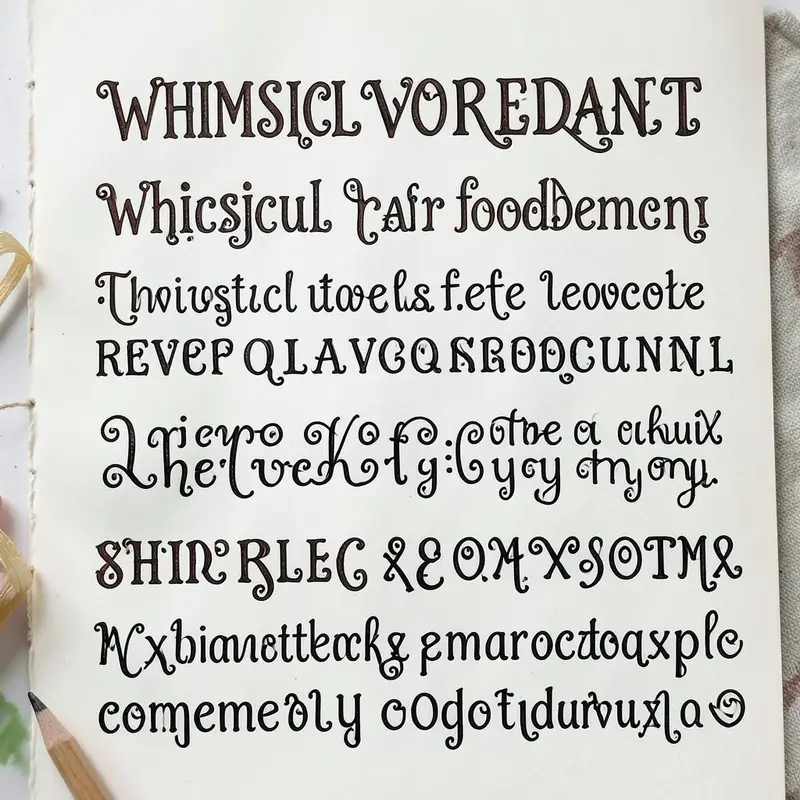
Imagine fonts that look like they’re straight out of a fairytale. Swirls, curls, and loops that dance across the page. These fonts are perfect for adding a touch of magic and wonder to any project.
Whimsical fonts can make your text look like it’s from a storybook. Use them for children’s party invitations or to add charm to a scrapbook. They’re trendy and unique, and they never fail to impress.
2. Bold and Beautiful
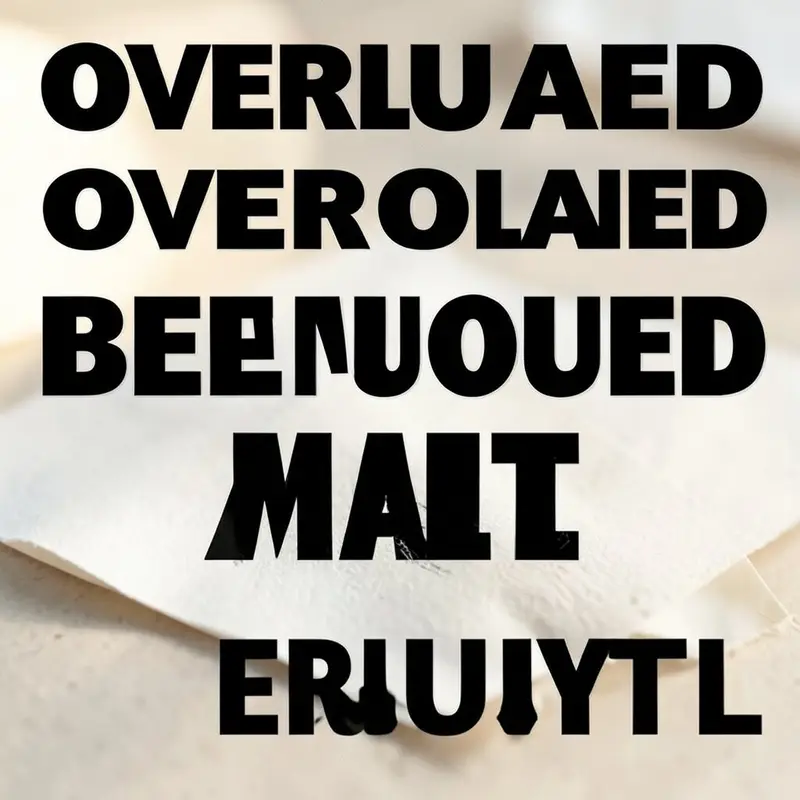
Bold fonts demand attention. They’re strong, confident, and perfect for making a statement.
Use bold fonts for headlines or titles to grab the reader’s attention. They’re ideal for posters, flyers, and social media graphics when you need your message to stand out.
3. Vintage Vibes
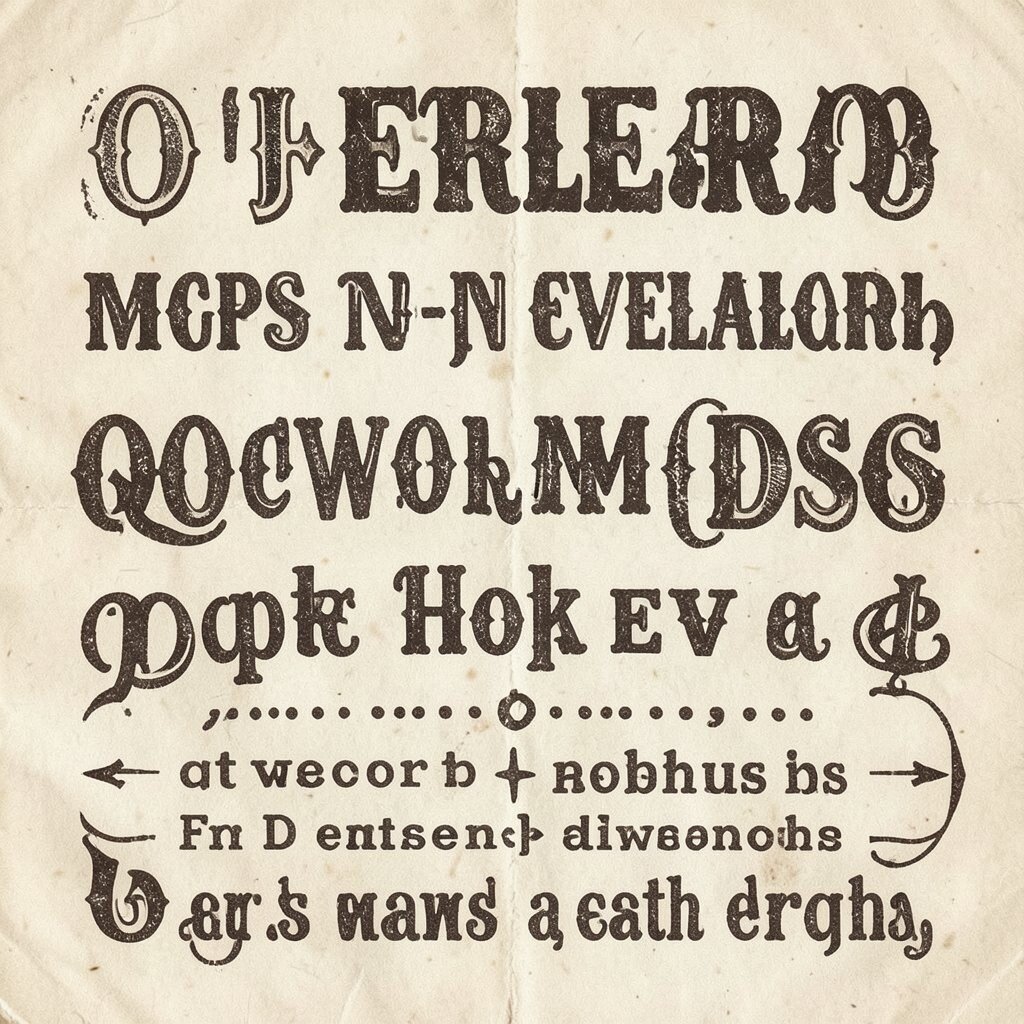
Travel back in time with fonts that have a retro feel. Think of the classic typography from the ’50s and ’60s.
These fonts are great for creating nostalgia. Use them for branding or to give your project a timeless look. They’re especially popular in fashion and home decor.
4. Minimalist Marvels
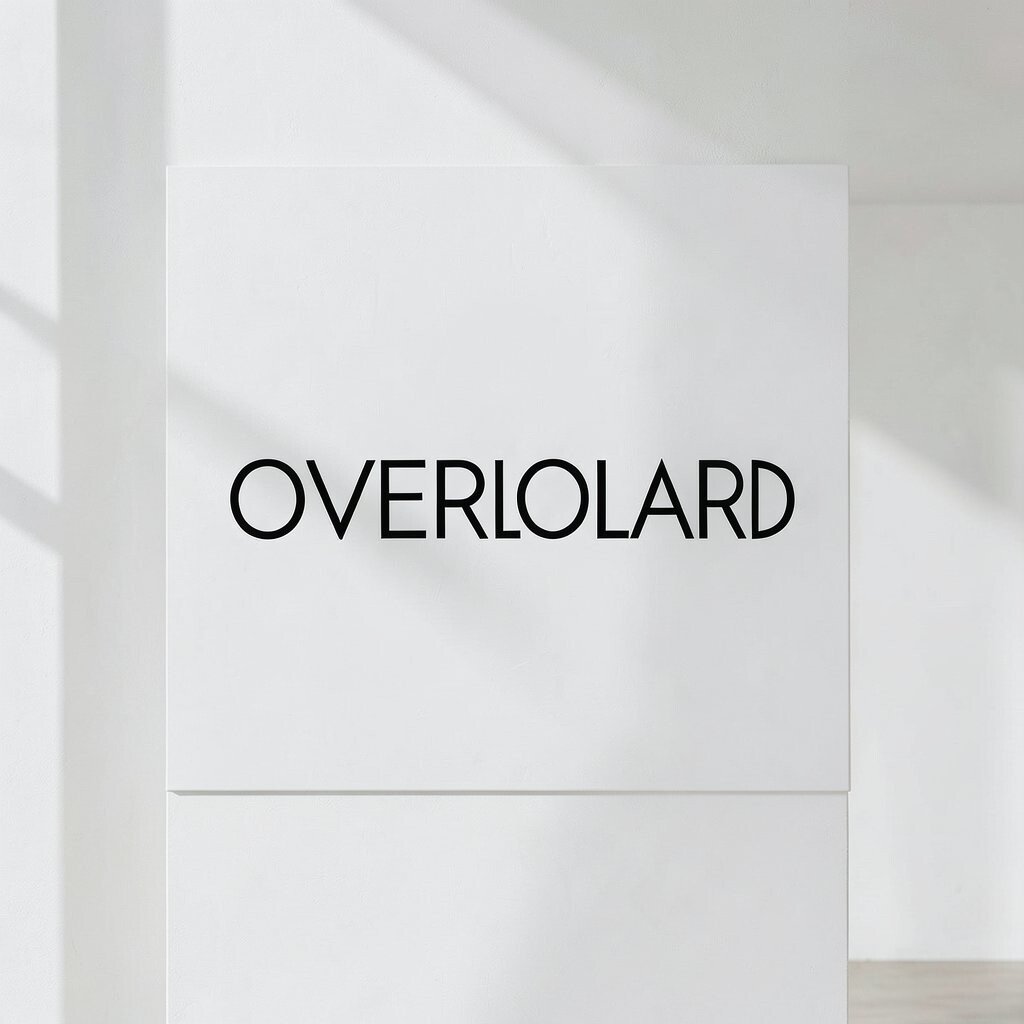
Simple and clean, minimalist fonts are all about clarity and elegance. They don’t distract; they enhance.
Perfect for modern designs, these fonts work well in logos and websites. They give your work a sleek and professional look.
5. Playful Patterns
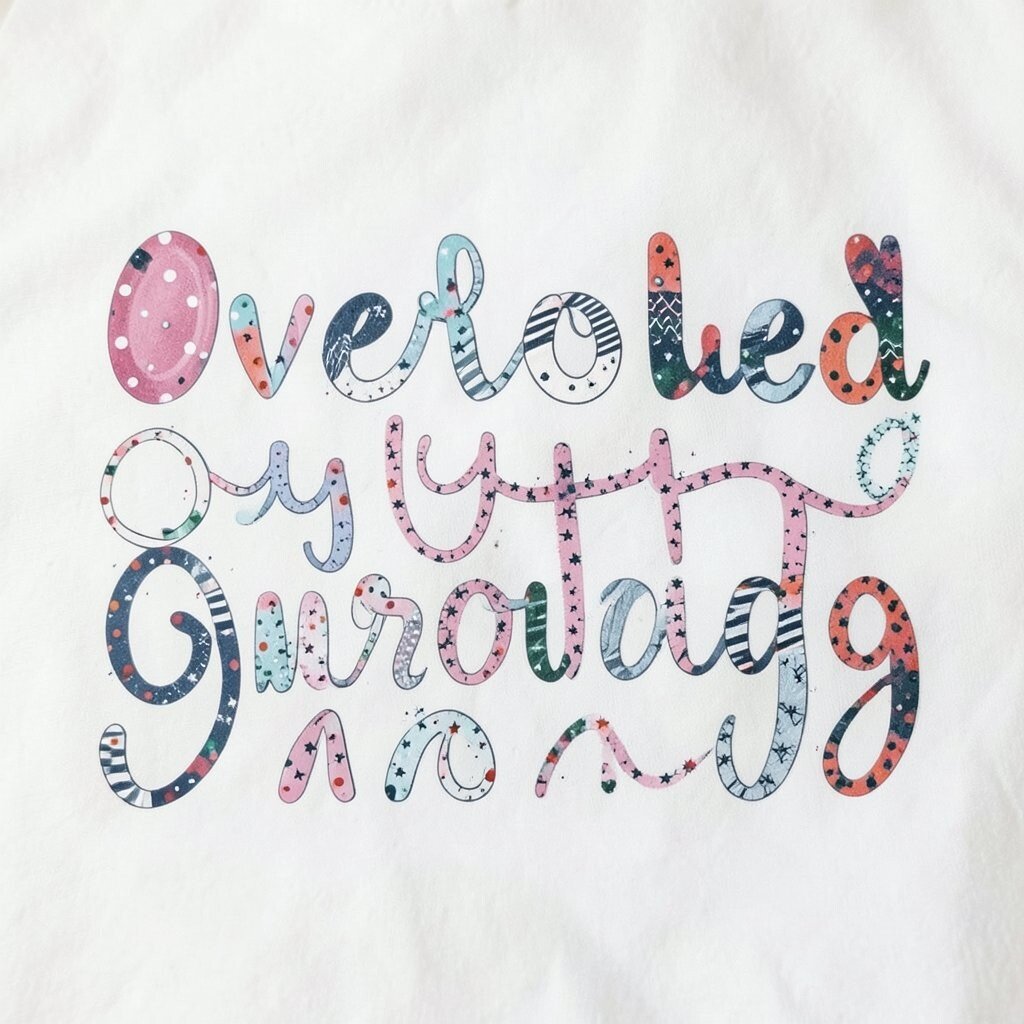
Fonts that incorporate patterns can add a fun twist to your text. Think polka dots, stripes, or even tiny stars.
These fonts are great for party invitations or playful branding. They add a unique element that can’t be ignored.
6. Handwritten Happiness
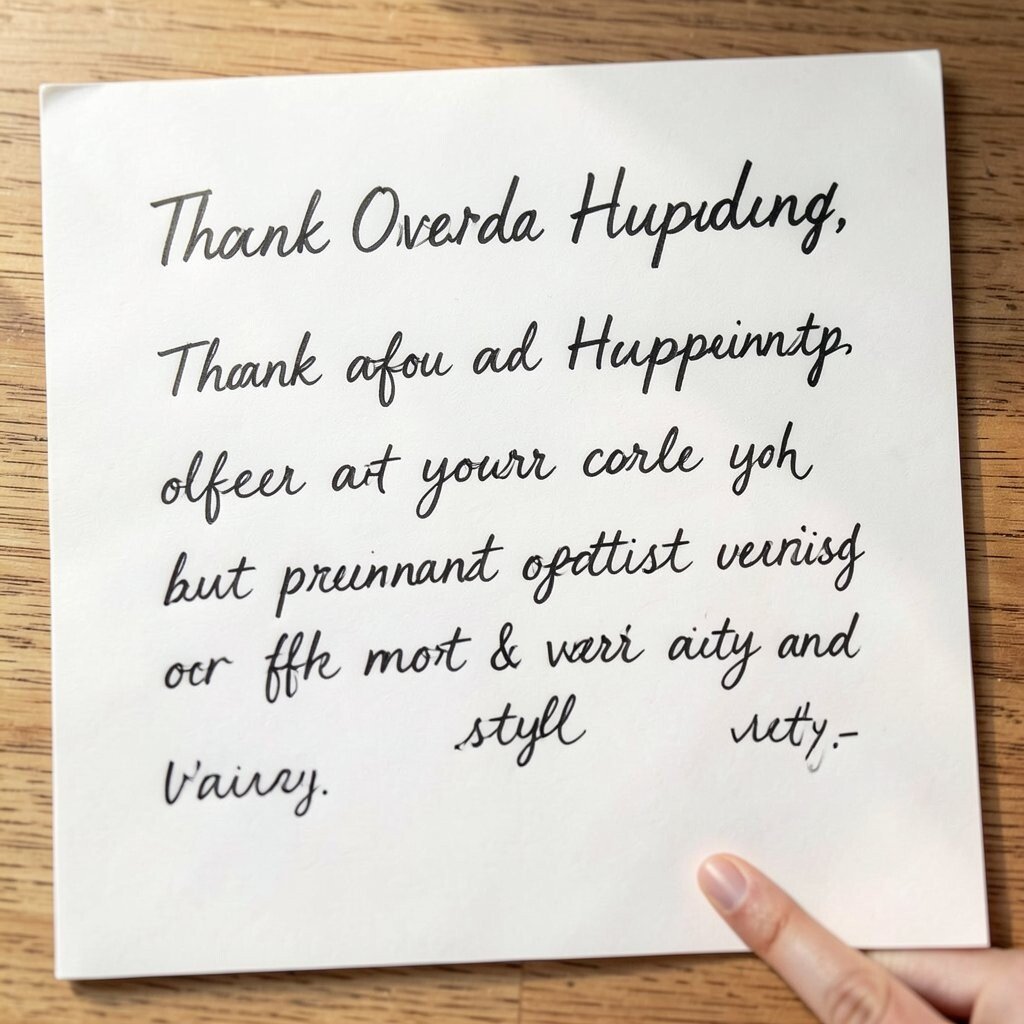
Handwritten fonts give a personal touch. They look like notes from a friend.
Use them to make your designs feel warm and inviting. They’re perfect for personal letters, thank you cards, or anything that needs a human touch.
7. Elegant Embellishments
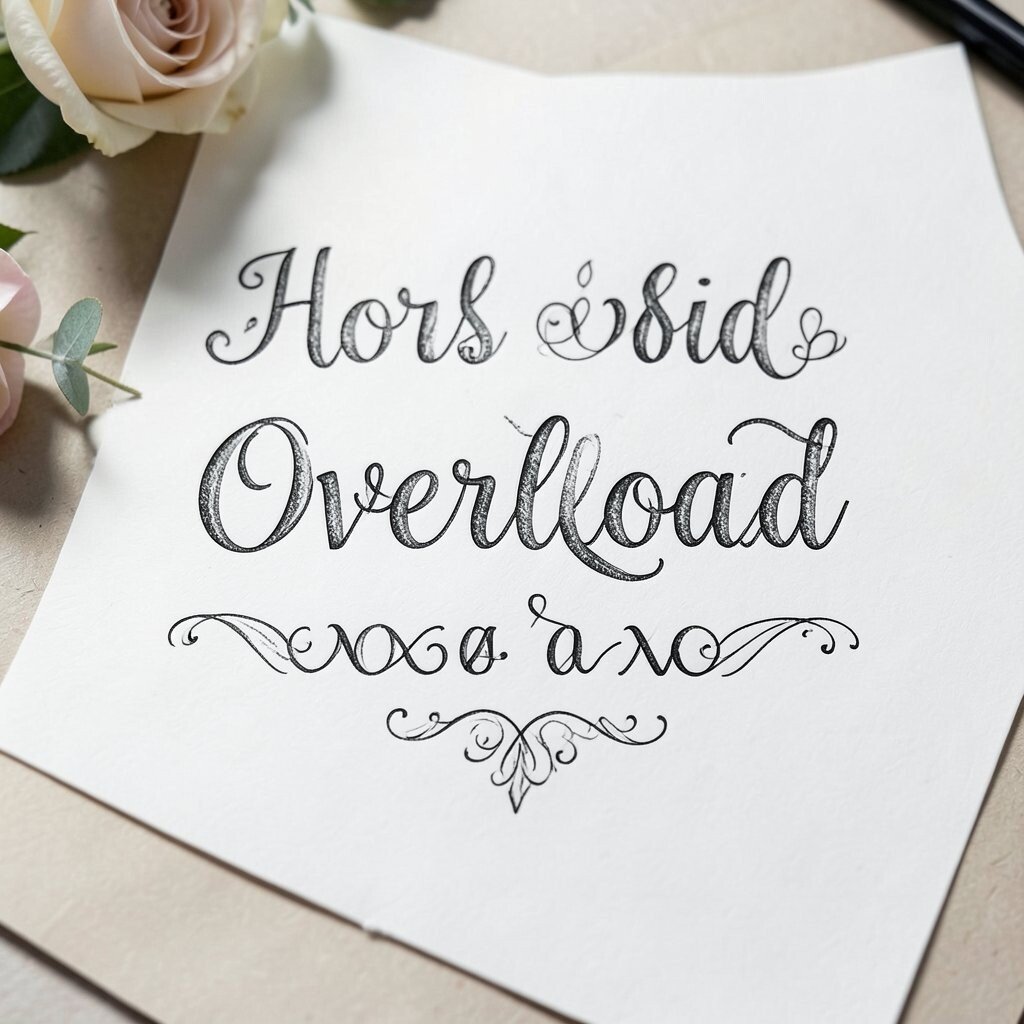
Fonts with embellishments add a touch of luxury. Think of intricate details and flourishes.
They’re perfect for wedding invitations or any project that needs a bit of elegance. They make your text feel special and unique.
8. Geometric Gems
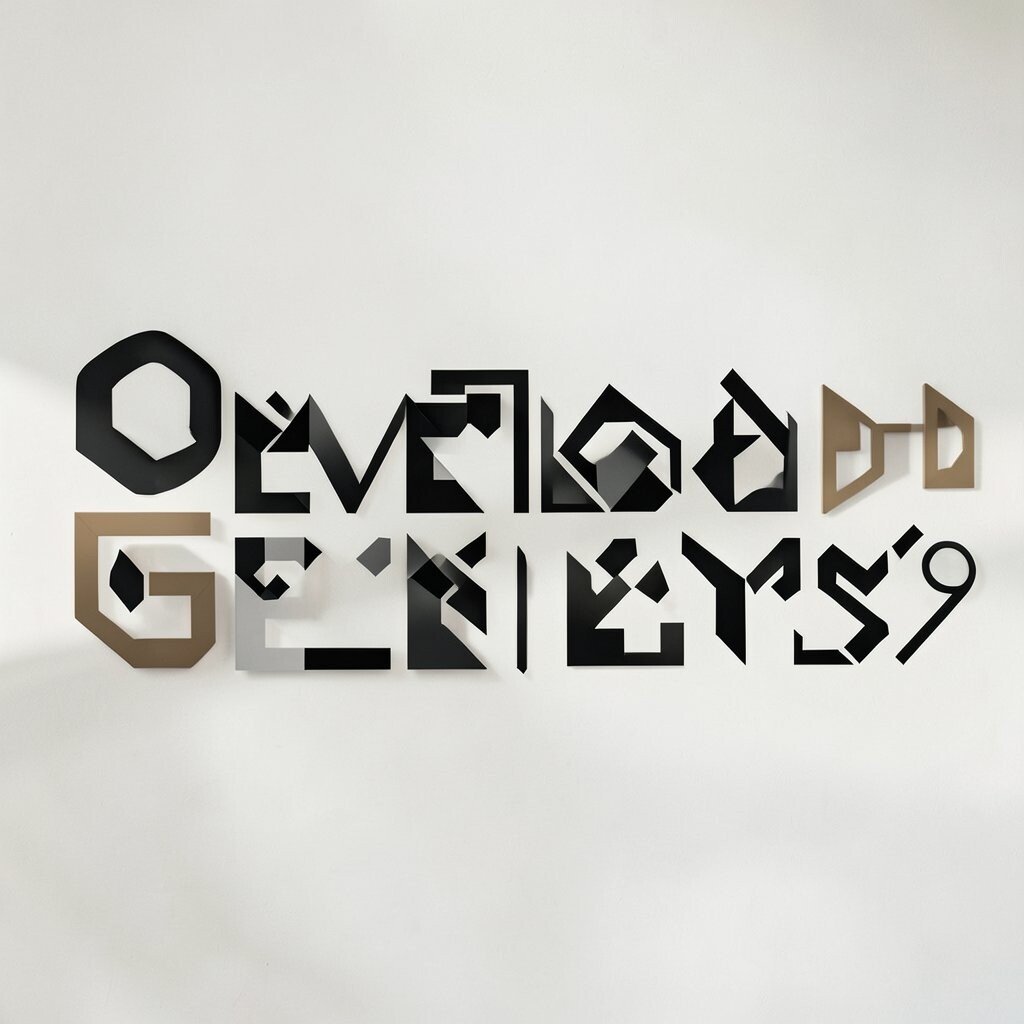
Geometric fonts are all about shapes and symmetry. They’re bold but clean.
Great for modern and futuristic designs, these fonts give your work a structured and balanced look.
9. Funky Fresh
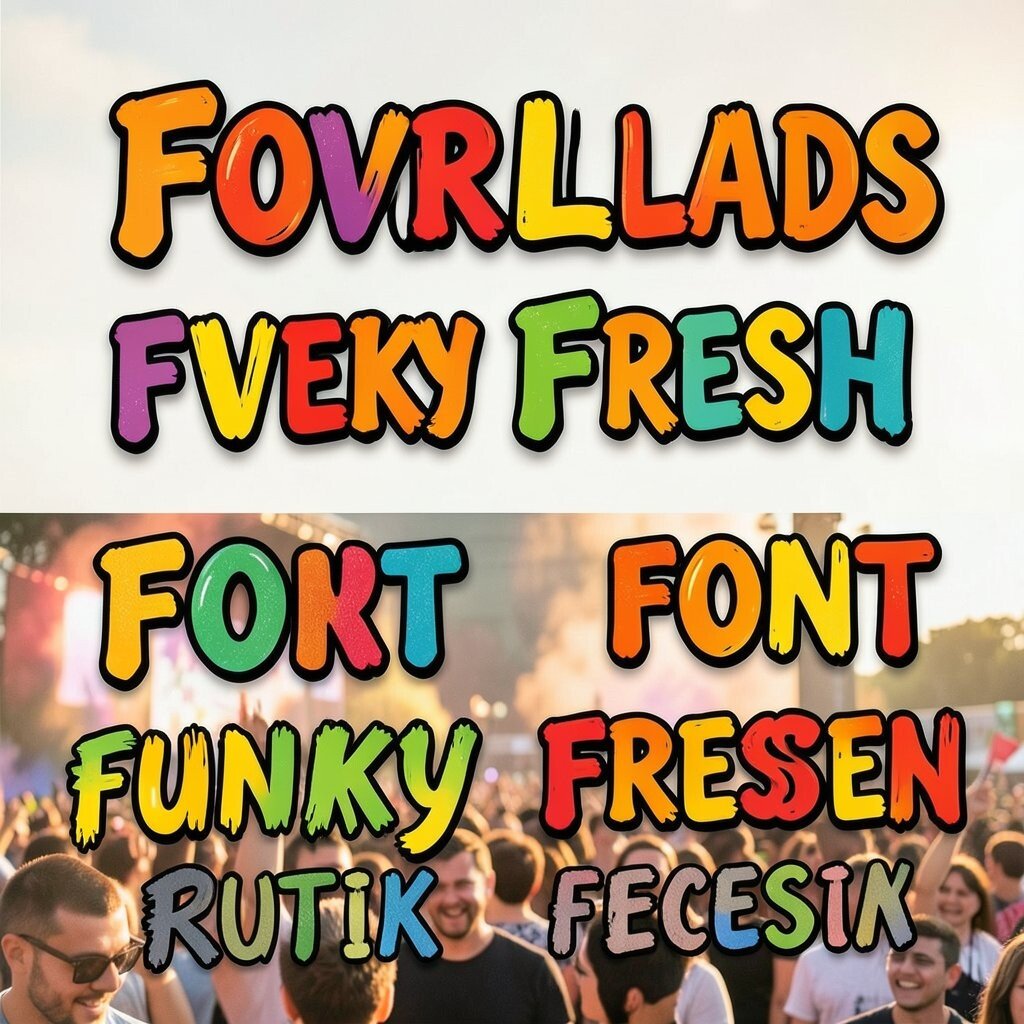
Funky fonts are quirky and full of energy. They’re not afraid to break the rules.
Use them for music festival posters or anything that needs a bit of flair. They’re sure to catch the eye and make people smile.
These fonts are often affordable, and they let you express your creativity without limits.
10. Monochrome Magic
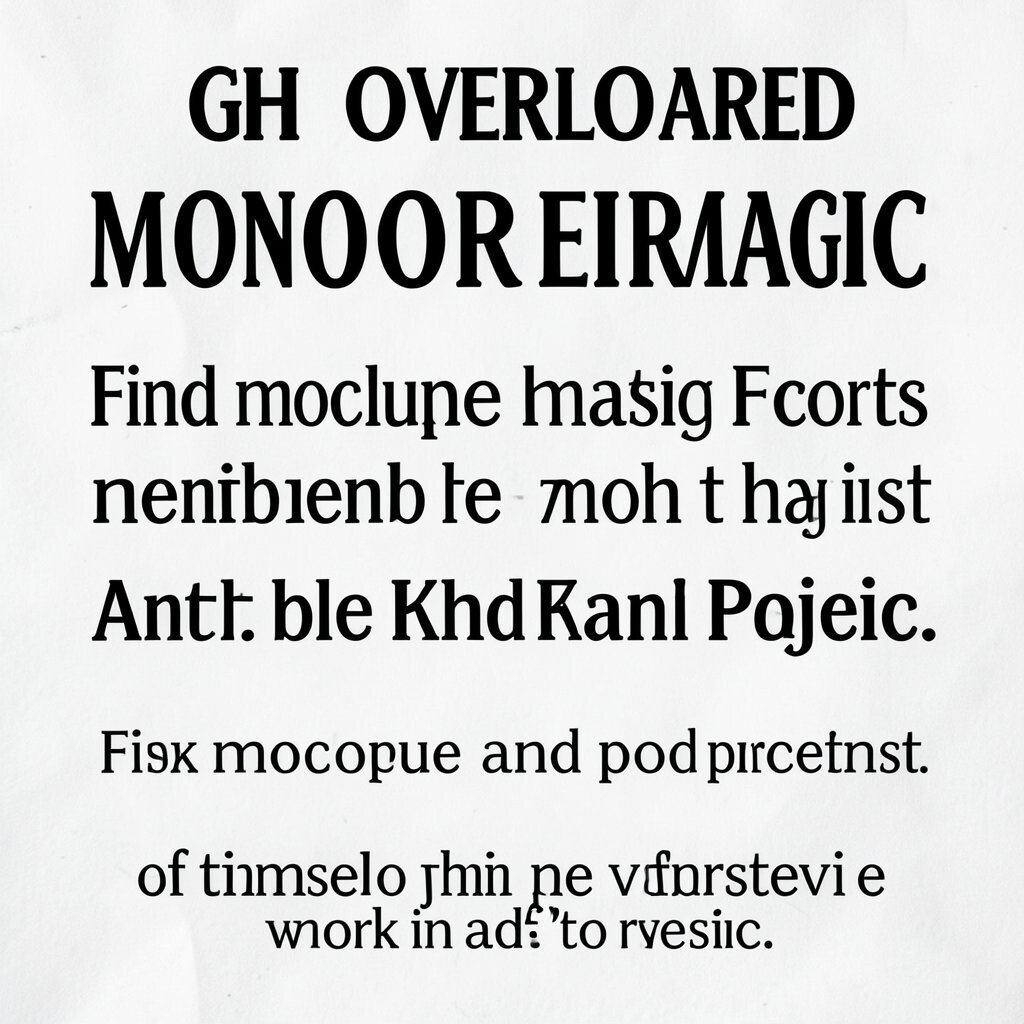
Monochrome fonts focus on black and white contrasts. They’re simple yet striking.
Perfect for creating a classic look, these fonts are versatile and work well in any project.
Find monochrome magic fonts both free and paid, offering a timeless appeal that’s hard to resist.
11. Watercolor Wonders
Watercolor fonts blend colors beautifully. They look like they’ve been painted by hand.
These fonts are ideal for art projects or to add a soft, dreamy effect to your text.
While some are free, investing in a high-quality watercolor font can truly elevate your design.
12. Industrial Impact
Industrial fonts are strong and rugged. They have a raw, mechanical feel.
Use them for branding in tech or construction, where a bold and robust look is necessary.
These fonts are often available at a moderate cost, perfect for making a powerful impression.
13. Nature’s Nook
Nature-inspired fonts are earthy and organic. Think leaves, flowers, and natural textures.
They’re perfect for eco-friendly brands or any project that connects with the outdoors.
Find these fonts for free or at a low cost, and enjoy the serenity they bring to your designs.
Use them for tech projects or to give your work a cutting-edge feel. They’re bold and memorable.
15. Doodle Delight
Doodle fonts are playful and full of fun illustrations. They look like they’ve been drawn in a sketchbook.
Perfect for adding a personal touch to any project, they bring joy and creativity to the table.